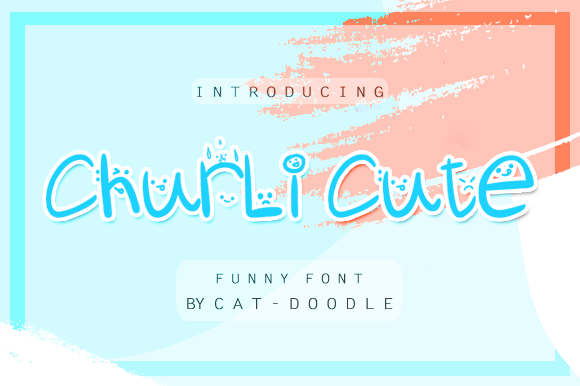
Discover the Whimsy of Churli Cute Font
Enter the enchanting world of Churli Cute Font, a delightful decorative font that exudes a modern charm. Perfect for adding a touch of whimsy to your designs, this font is a game-changer for creatives looking to make a lasting impression. Whether you’re a seasoned designer or just starting out, Churli Cute Font is an invaluable addition to your toolkit.
With its unique flair and versatility, Churli Cute Font is the perfect solution for designers seeking to elevate their work and stand out from the crowd. So why settle for ordinary when you can add a pinch of magic to your designs with this lovable font?
Churli Cute Font Key Features
- Unique Characteristics: This font features a playful, cursive design with a mix of rounded and pointed letterforms, making it perfect for creating a whimsical and childlike atmosphere.
- Language Support: Churli Cute Font supports a wide range of languages, including Latin, Cyrillic, and Greek scripts.
- Font Weight: The font comes in a single weight, but it can be used to create a range of visual effects by adjusting the font size, color, and spacing.
Churli Cute Font Review
When I first laid eyes on the Churli Cute Font, I couldn’t help but smile. The playful, whimsical feel of this font is perfect for designers looking to add a touch of personality to their projects. ✨ The bold, rounded shapes and cute details make it an excellent choice for children’s books, social media graphics, and other lighthearted designs.
- The Churli Cute Font has a wide range of characters and glyphs, making it suitable for various languages and text styles.
- The font is available in several weights, from light to bold, allowing designers to experiment with different moods and atmospheres.
- The font’s high-quality rendering ensures crisp, clear text, even at smaller sizes.
However, there are some limitations to consider. ⚠️ The font may not be the best choice for formal or professional projects, as its playful nature can come across as immature or unprofessional in some contexts. Additionally, the font’s complexity may lead to compatibility issues with older software or systems.
Overall, the Churli Cute Font is a delightful addition to any designer’s toolkit. While it may not be suitable for every project, its unique charm and versatility make it an excellent choice for designers looking to add a touch of whimsy to their work.
The Churli Cute Font is ideal for:
1. Social media graphics and posts.
2. Children’s book illustrations and text.
3. Party invitations and decorations.
4. Food and beverage branding.
What is the character set and language support for the Churli Cute Font?
The Churli Cute Font includes a comprehensive character set, covering Latin, Cyrillic, and Greek scripts, as well as a range of punctuation and symbol characters. Language support includes English, Spanish, French, German, Italian, Portuguese, and many others.